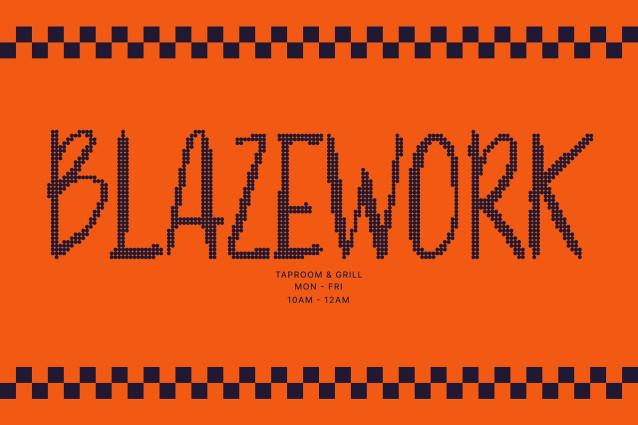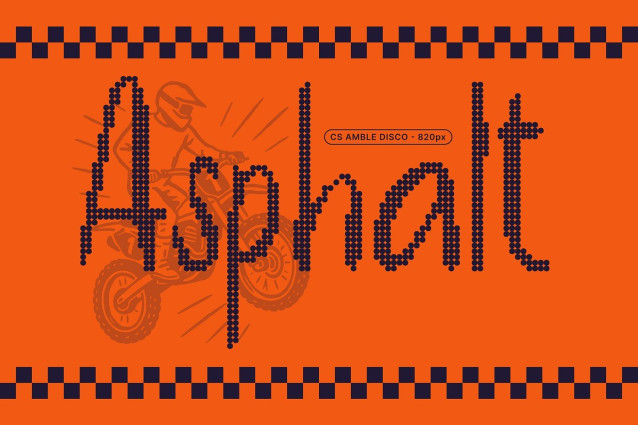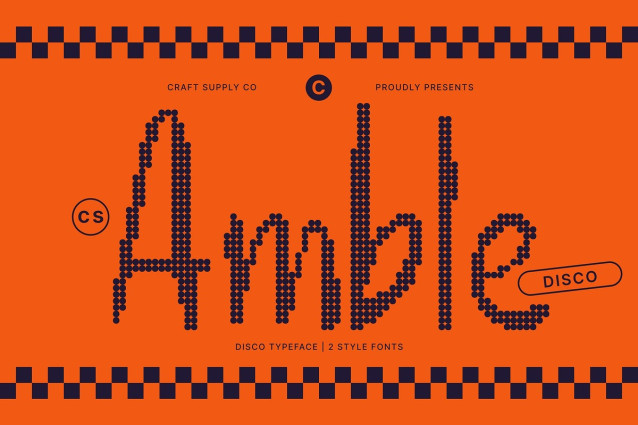
CS Amble Disco Font
CS Amble Disco Font This is a soft and expressive handwritten sans serif font that blends authentic pen flow with a touch of modern sparkle. Its natural strokes and gentle rhythm evoke warmth and sincerity, while the disco inspired shimmer adds a radiant, lively edge to every word.
Natural Flow for Authentic Expression Each character is thoughtfully drawn to capture the essence of handcrafted elegance. The smooth curves and relaxed structure make this font ideal for personal branding, quotes, invitations, or greeting cards, delivering a heartfelt and genuine tone.
Disco Effect for Modern Glamour The disco style shine enhances its organic texture, giving it a glamorous, festive personality. This subtle sparkle brings out a sense of joy and celebration perfect for modern digital design, party graphics, or creative social media content that aims to stand out with style.
Versatile for Warm and Stylish Designs Whether used for branding, posters, lifestyle products, or event visuals, this font brings a perfect balance between casual charm and refined sophistication. Its lively elegance ensures your typography always feels fresh and captivating.